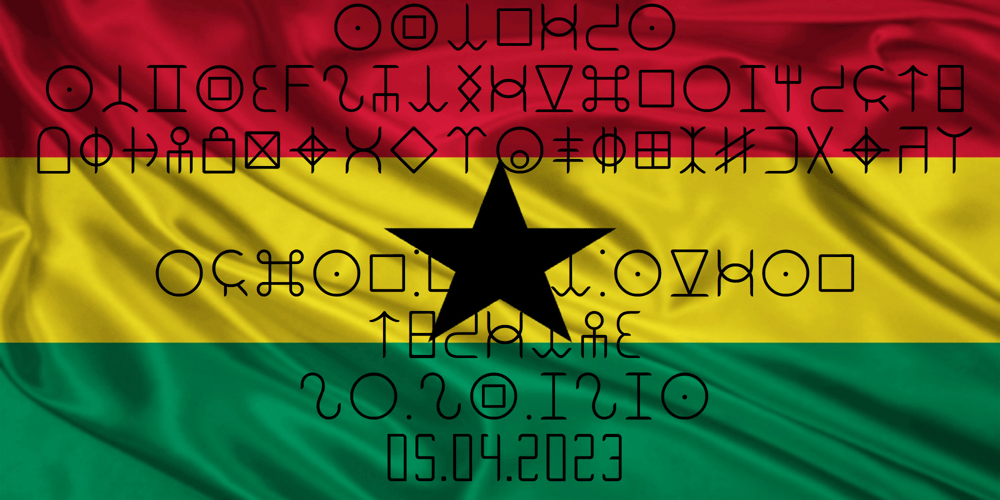
Ongunkan Adinkra Script
Ongunkan Adinkra Script font
Ongunkan Adinkra Script Font Family was designed by Osman Nuri ALKAN and published by Runic World Tamgacı. Ongunkan Adinkra Script contains 1 styles and family package options. The Adinkra alphabet is a way to write some of the languages spoken in Ghana and Ivory Coast, such as Akan, Dagbani, Ewe and Ga. It is a simplified version of the Adinkra symbols, and was introduced in 2015 by Charles M. Korankye, who has written a number of books about it.According to tradition, the Adinkra symbols were created by Nana Kwadwo Agyemang Adinkra, the King Gyaman people in the Ashanti region of Ghana from 1810 to 1820. Or they were created by Gyaman people, and the king liked them so much that he wore them on his clothes and named that after himself.The Adinkra symbols are used as decoration, logos, arts, sculpture, pottery and so on. The symbols represent sayings, proverbs or concepts, such as wisdom, authority, strength, unity, love adaptability, wealth, peace, war or agreement.Since Unicode codes have not been assigned yet, it is designed on a latin-based font.Please contact me if you want changes to the keyboard layout.